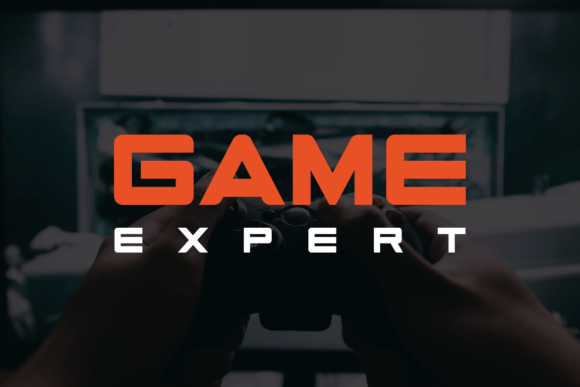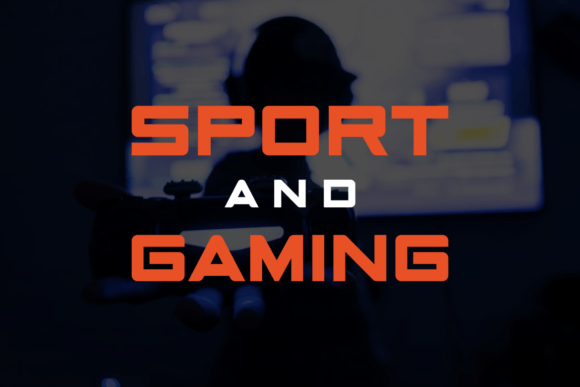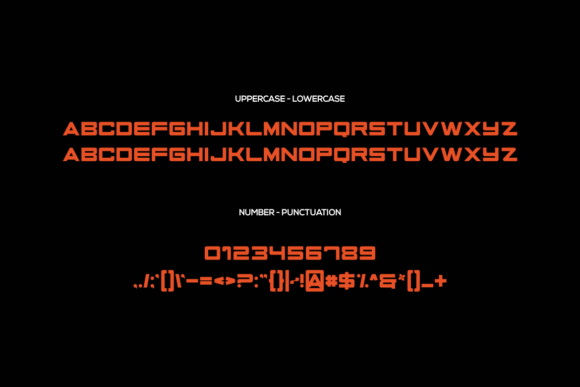
The Winning Combination: Elevating Sports and Gaming Design with Bhizing Progame Font
Imagine you’re in the middle of a heated esports tournament, and the crowd is on the edge of their seats as the scores are displayed in bold, eye-catching text. The energy is electric, and the graphics are on point. That’s what happens when you use the right font – and we’re not just talking about any font, but the Bhizing Progame Font. This cool, modern font is specifically designed for sports and gaming, making it the perfect addition to your next project.
For designers, the Bhizing Progame Font is a valuable asset. Its bold, clear letters and sharp edges bring a dynamic touch to any display, making it easy to showcase scores, player names, or game titles. Whether you’re designing for a video game, sports event, or esports tournament, this font brings energy and excitement to your text, setting you apart from the competition.
Bhizing Progame Font Key Features
- Unique Characteristics: Bhizing Progame Font features a unique blend of futuristic and industrial elements, making it ideal for gaming, technology, and science-related projects.
Bhizing Progame Font Review
Overall, I was excited to dive into the Bhizing Progame Font, but my experience was a mixed bag. Here’s what I liked and what I didn’t.
- Unique Style: The font has a quirky, retro vibe that’s sure to stand out in your designs.
- Good for Digital: Bhizing Progame is optimized for digital use, making it perfect for websites, apps, and other online platforms.
- Easy to Read: Despite its playful style, the font is surprisingly easy to read, even at smaller font sizes.
- No Italic or Bold: The font only comes in a single weight, which can limit your design options.
Overall, I think the Bhizing Progame Font is a fun and creative choice for digital projects. While it has its limitations, it’s a great option for designers looking to add some personality to their work.
Bhizing Progame Font is ideal for:
- Video game-themed designs
- Sci-fi and futuristic designs
- Edgy and bold typography
For the best results, use Bhizing Progame Font in bold and large sizes to make a statement.